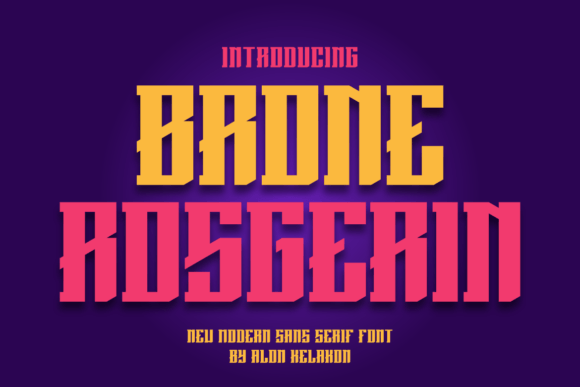
The Ultimate Guide to Brone Rosgerin Font: Elevate Your Designs with this Bold and Cool Display Font
An Honest Review of Brone Rosgerin
- ✨ Bold and impactful: Brone Rosgerin makes a statement with its bold and cool design, perfect for headlines, titles, and promotional materials.
- ✅ Highly versatile: This font can be used for a wide range of projects, from branding and advertising to packaging and signage.
- 💡 Instant recognition: Brone Rosgerin’s unique design ensures that your text will stand out and grab attention.
While Brone Rosgerin is an excellent font, there are a few things to keep in mind:
- 🤔 Legibility at small sizes: As with many bold fonts, Brone Rosgerin may not be the best choice for body text or small sizes, as it can become difficult to read.
- ⚠️ Overuse: As with any bold font, be careful not to overuse Brone Rosgerin, as it can quickly become overwhelming.
The Designer Inspiration Behind Brone Rosgerin
Brone Rosgerin was designed with the goal of creating a bold and impactful display font that would make a statement. The designer drew inspiration from a range of sources, including urban landscapes and modern typography. The result is a font that is both cool and confident, perfect for designers who want to add a touch of sophistication to their work.
| Font Name | Brone Rosgerin Font |
| Author | alonkelakon |
| What is Brone Rosgerin? | Brone Rosgerin is a bold and cool display font designed for creative projects. |
| Is Brone Rosgerin easy to read? | Brone Rosgerin is designed to be bold and impactful, but may not be suitable for body text or small sizes. |